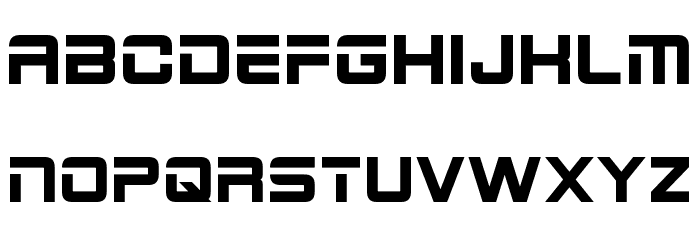
2015 Cruiser Bold Font
This font features a bold, geometric design with a futuristic and industrial feel. The characters are constructed with thick, uniform strokes, giving it a strong and impactful presence. The angular shapes and sharp edges contribute to a modern aesthetic, while the consistent stroke width maintains a clean and organized appearance. The font includes uppercase letters, numbers, and a variety of special characters, making it versatile for different design needs. Its boldness and unique style make it suitable for attention-grabbing headlines and logos.
A bold, geometric font with a futuristic and industrial design.
- Proposed Projects: Ideal for use in technology branding, automotive designs, video game titles, and sci-fi themed projects.